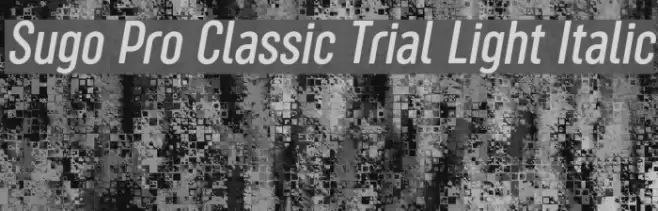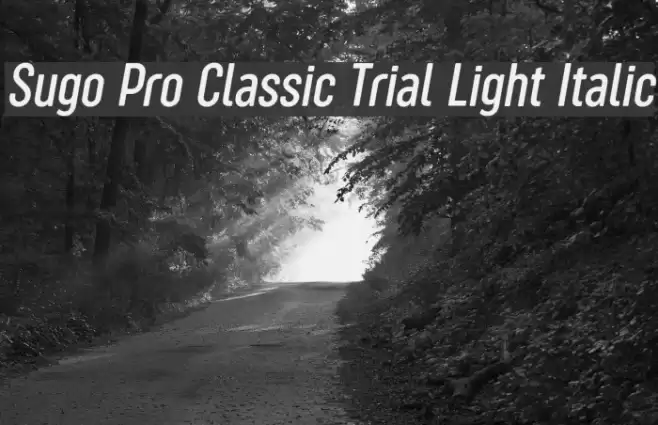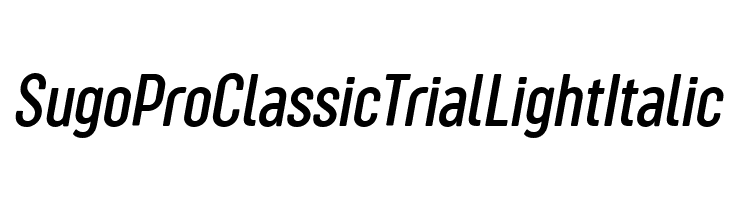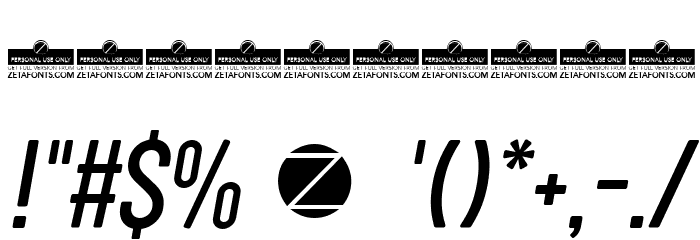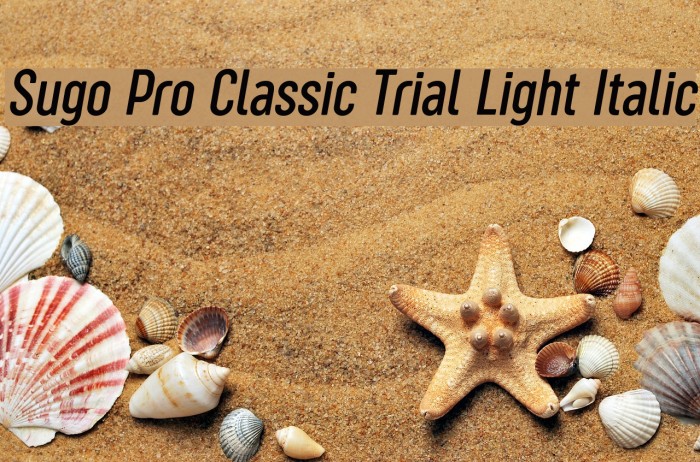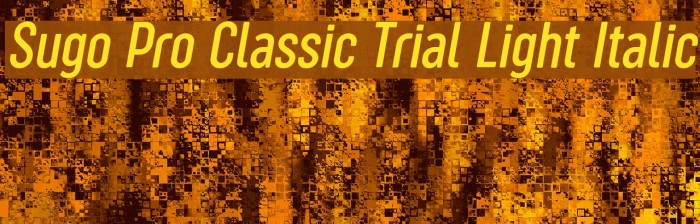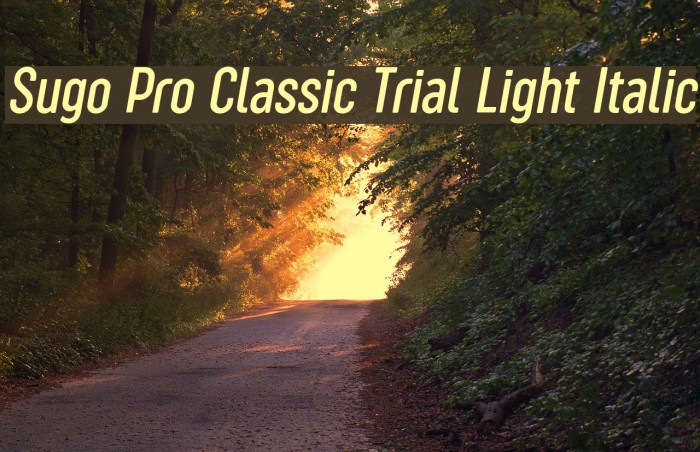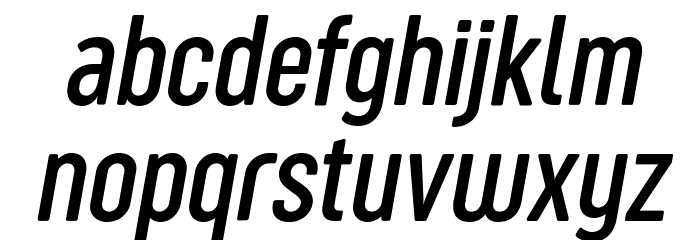
Sugo Pro Classic Trial Light Italic Font
Sugo Pro Classic Trial Light Italic Description
This font features a sleek and modern design with a slight italic slant, giving it a dynamic and forward-moving appearance. The characters are well-defined with a consistent stroke width, contributing to a clean and professional look. The uppercase and lowercase letters maintain a uniform style, ensuring readability and visual harmony. The numerals and special characters are crafted to match the overall aesthetic, making it versatile for various applications. Its light weight adds an elegant touch, suitable for projects requiring a subtle yet sophisticated typeface.
A modern, italic sans-serif font with a sleek and elegant design from Uncategorized fonts.
- Proposed Projects: Ideal for branding, editorial design, advertising, and digital interfaces where a modern and professional look is desired.